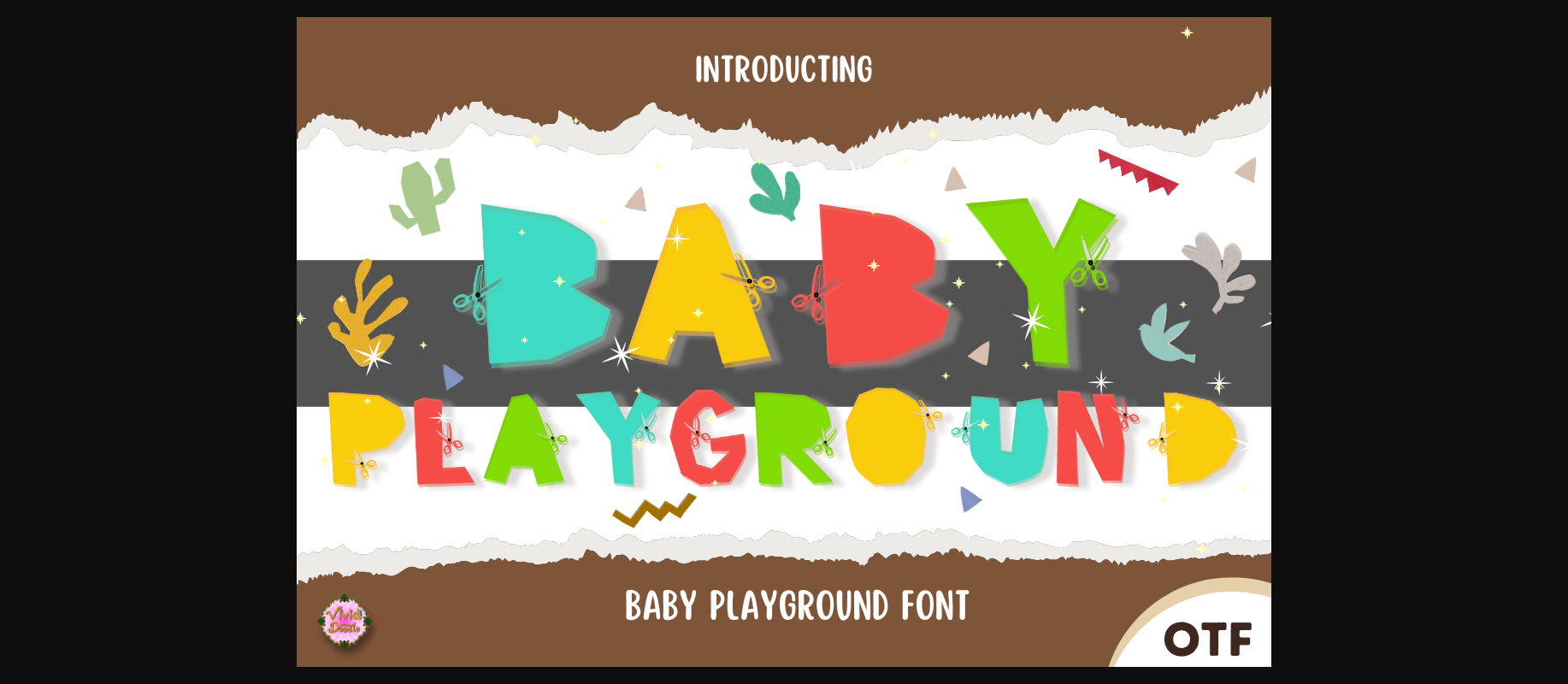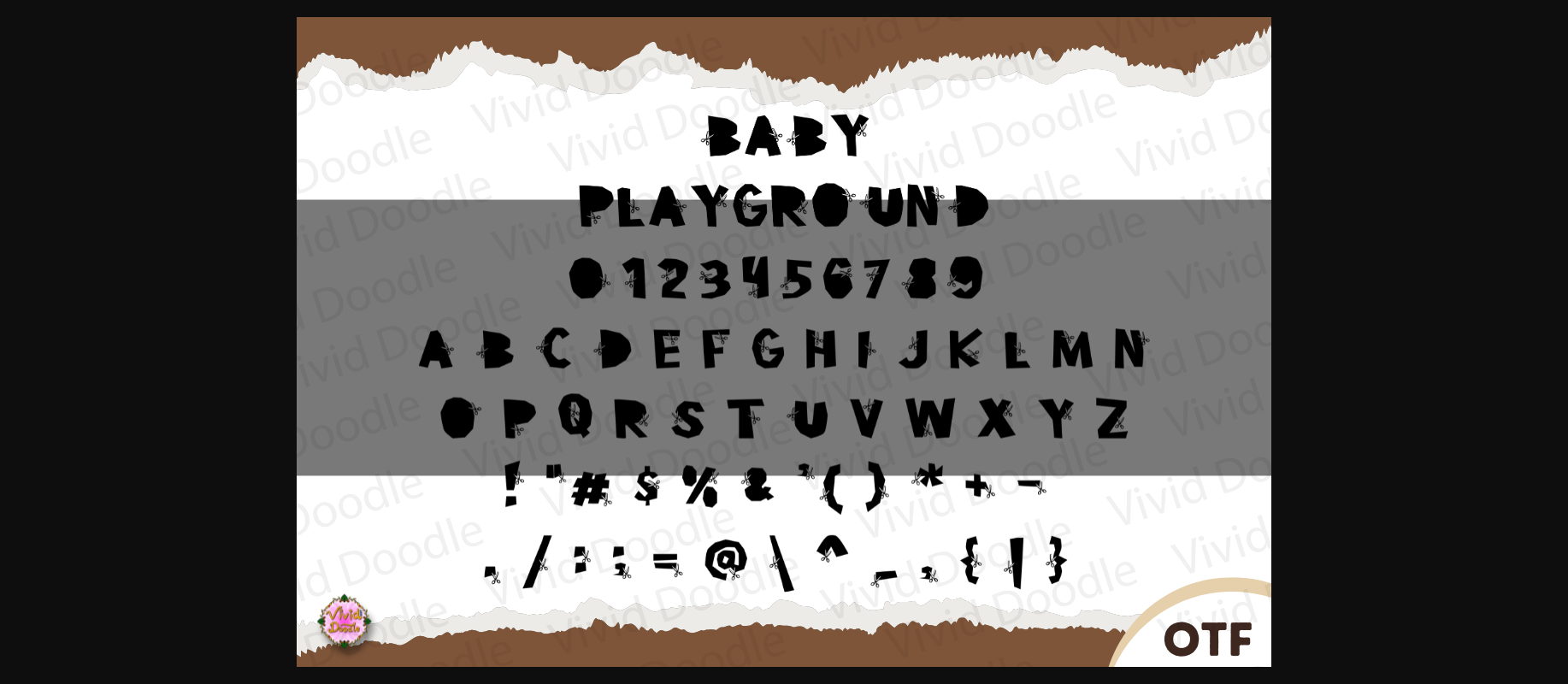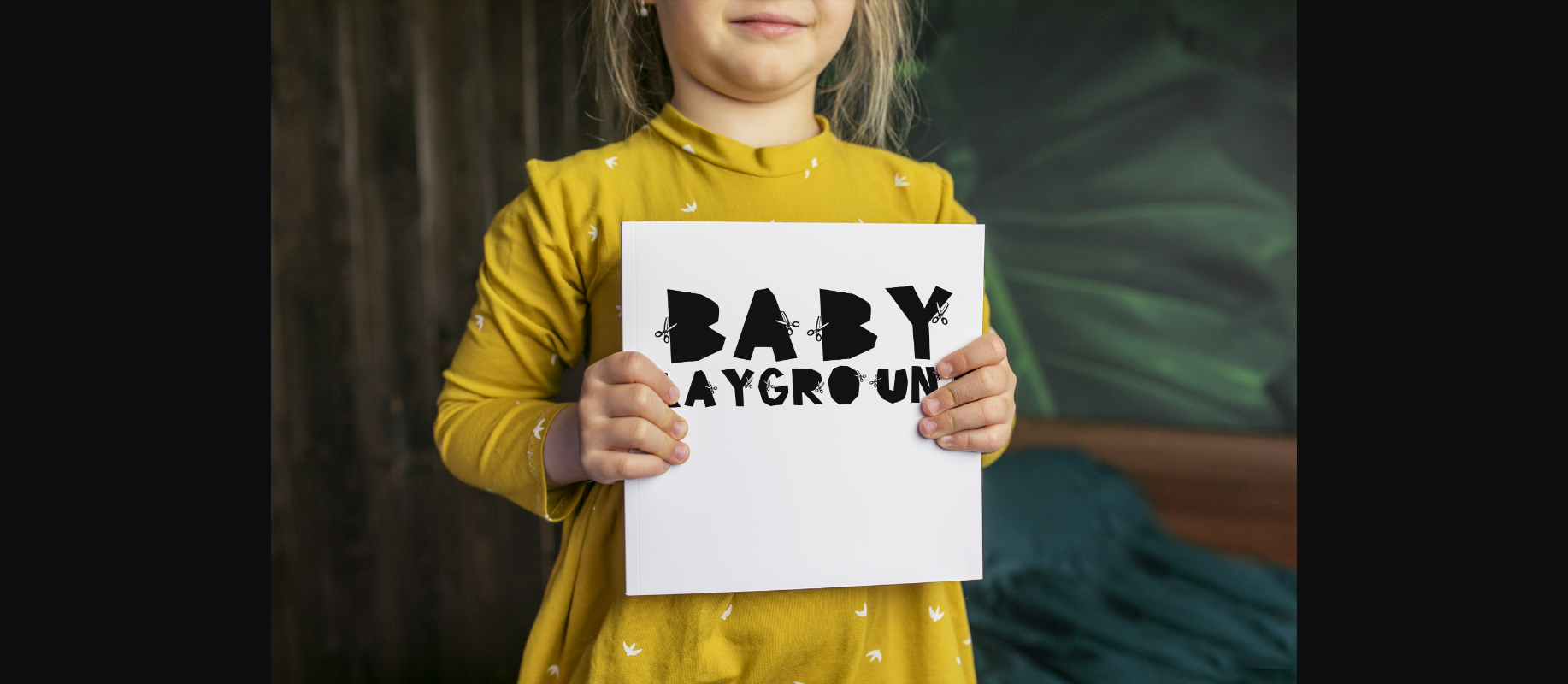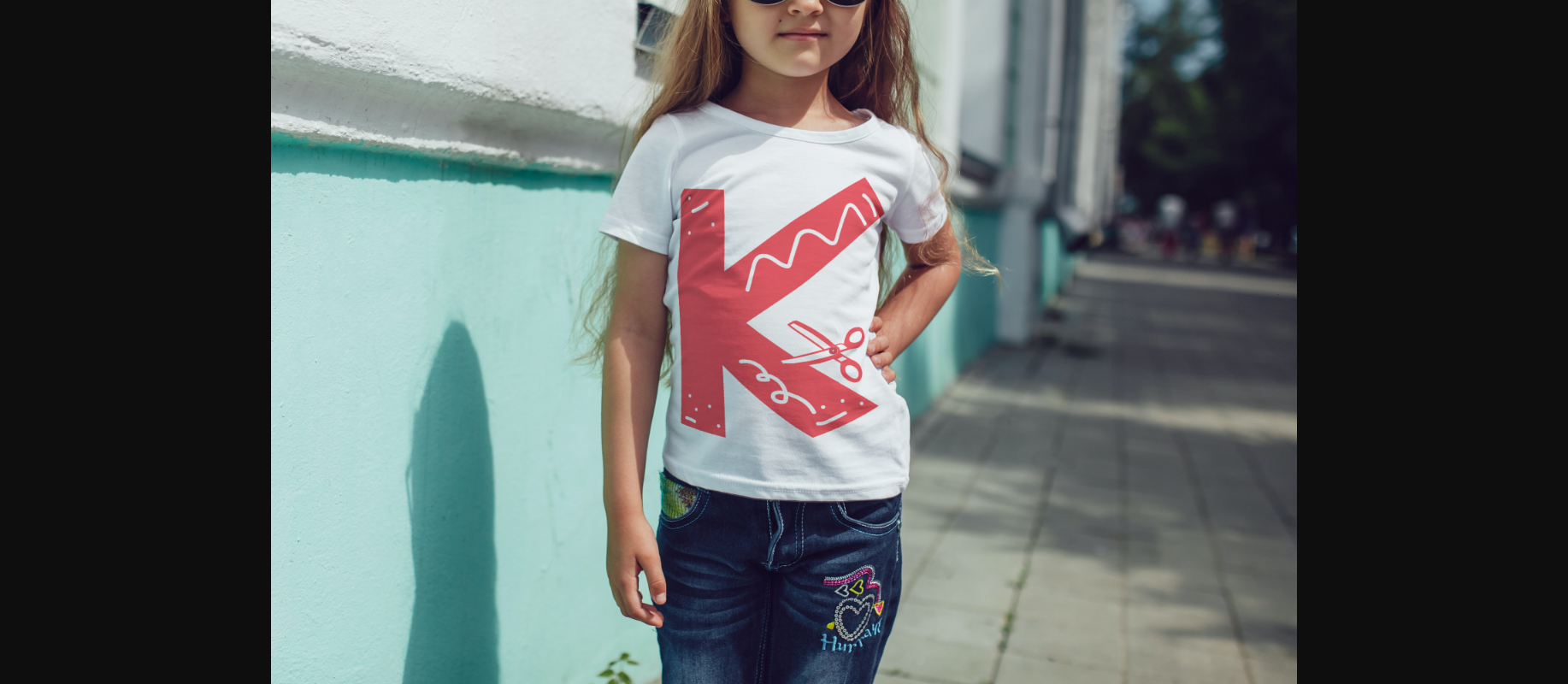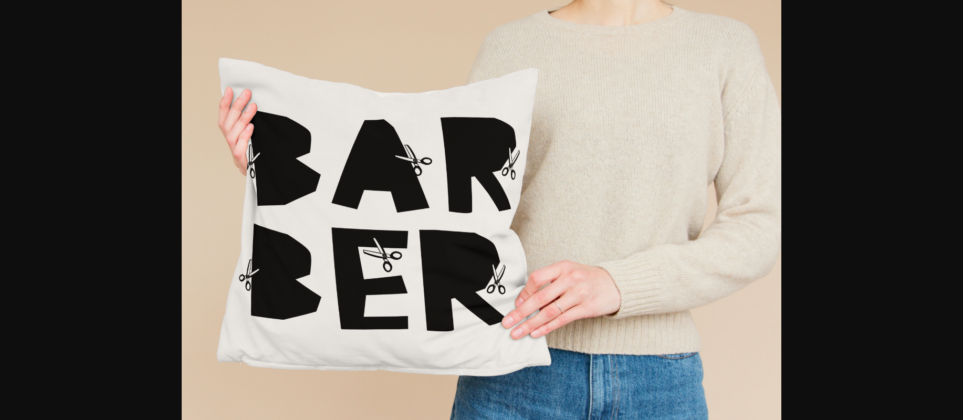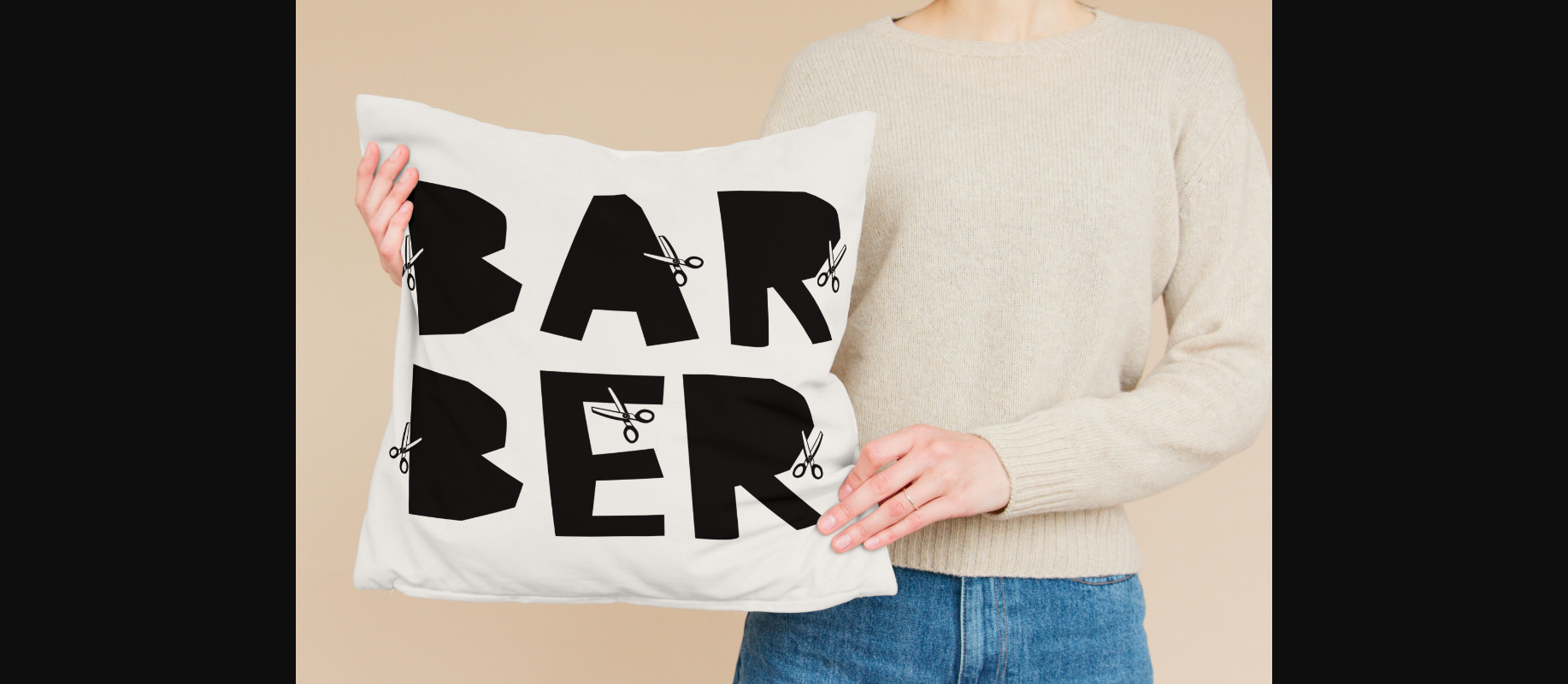
About Baby Playground Font
Presenting the Baby Playground Font – a versatile tool ideal for paper cut creations, graphic design works, and enhancing hairstyles. This playful typeface invokes a sense of childlike wonder, perfect for infusing your projects with a touch of whimsy. Whether you’re crafting an intricate paper cut piece or applying the finishing touches to a unique hairstyle, the Baby Playground Font is your trusty companion. Its endearing charm is certain to evoke delight while adding a professional touch to your work. So, let your creativity take flight with the Baby Playground Font – the quintessential typeface that turns ordinary designs into extraordinary ones!